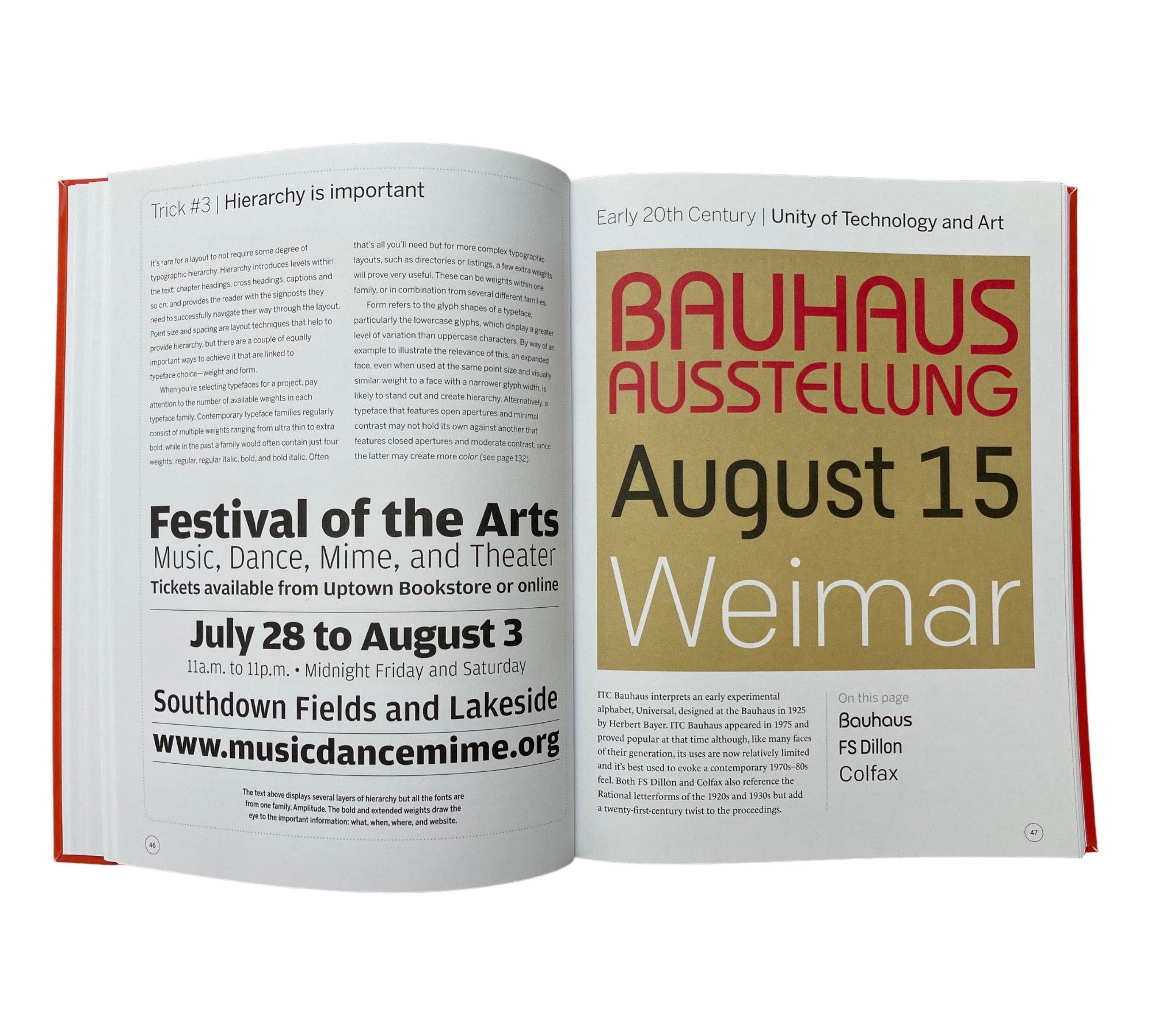
The suggested type combinations illustrated throughout this book are designed to provide the information and inspiration you need to make the best choices you can when bringing typefaces together.
Every creative brief requires its own unique typographic solution to achieve both individuality and visual harmony. This is why the question "what's the best typeface combination?" is impossible to answer succinctly. Typefaces are a bit like people; their personalities can alter ever so slightly when you bring them together in different groups. A stern Geometric san serif can act the part of a plain disciplinarian when standing next to an equally restrained Transitional serif, but can become light-hearted and playful when it encounters a lively Casual script or a burly Slab serif face. Choosing typefaces that work well together is ultimately as subjective as it is scientific, as personal as it is informed, and as debated as it is agreed upon.